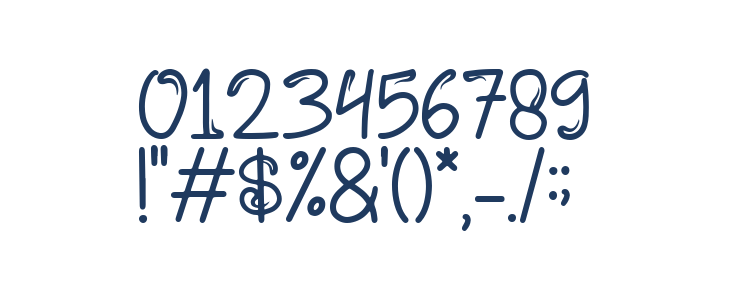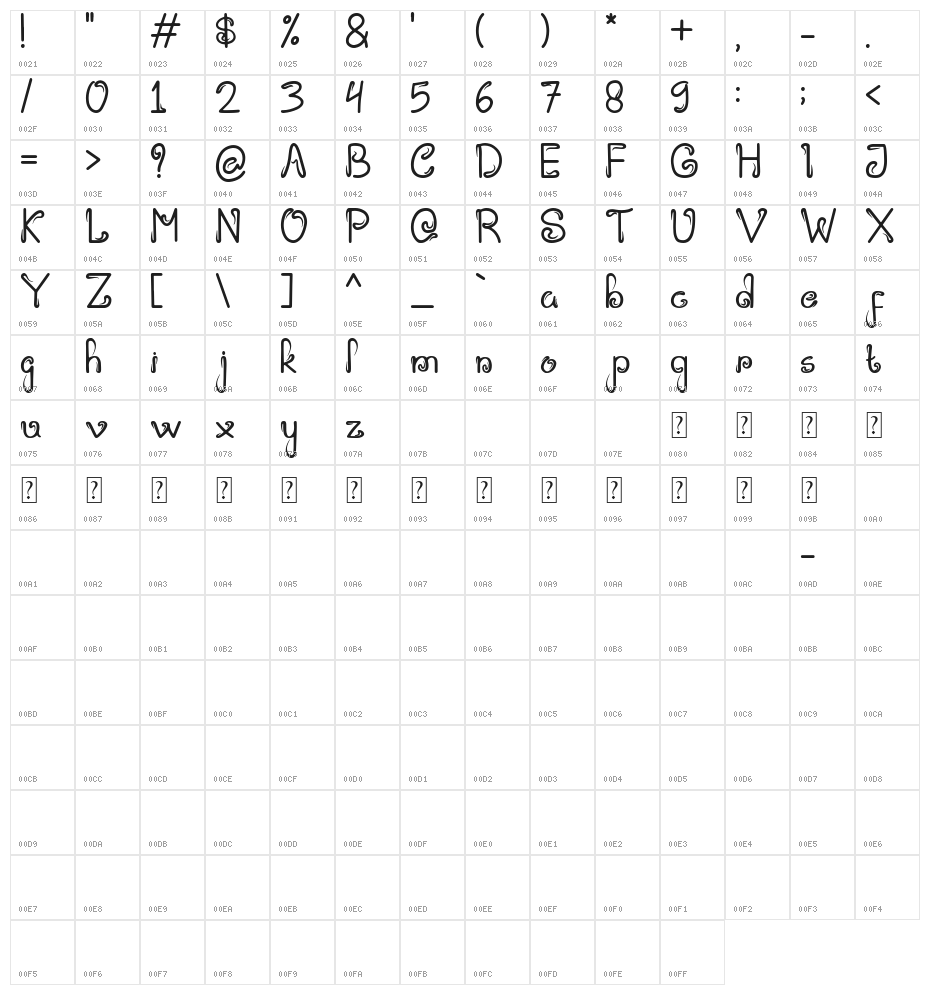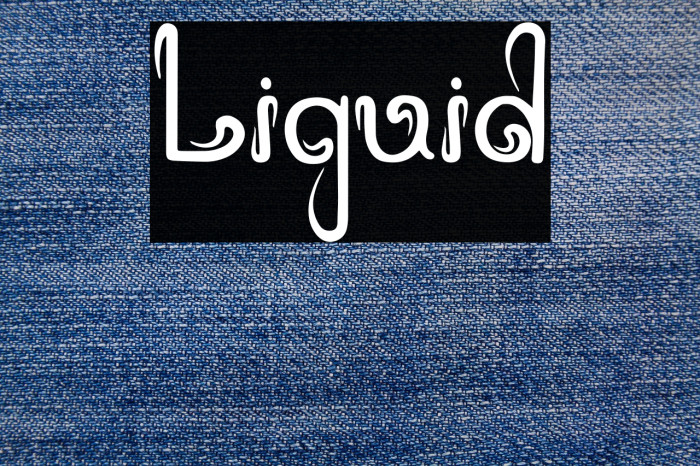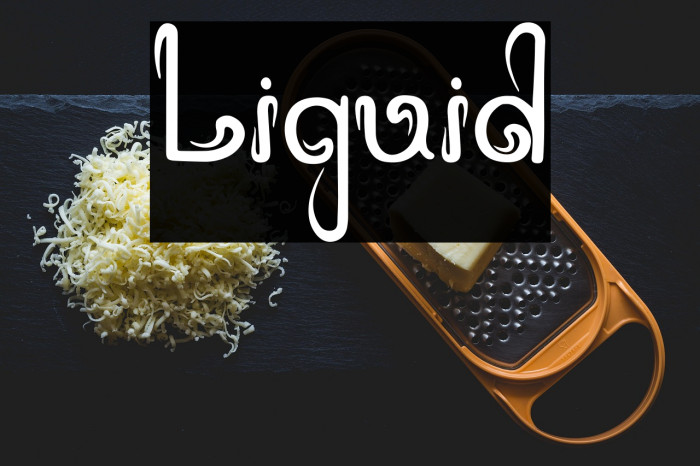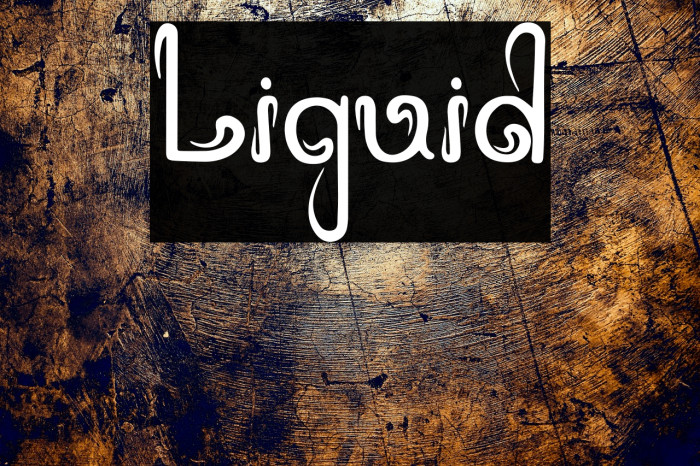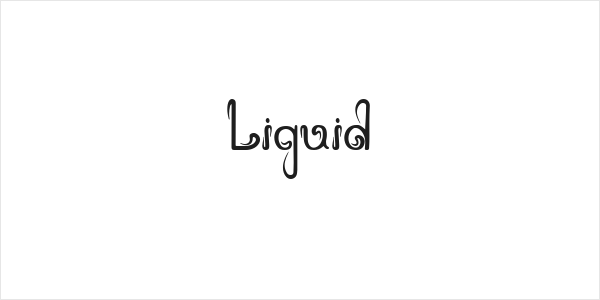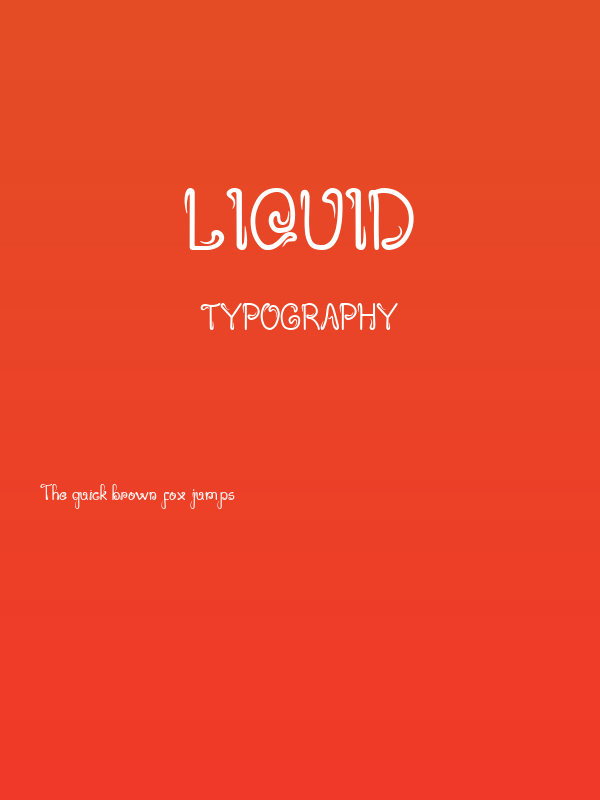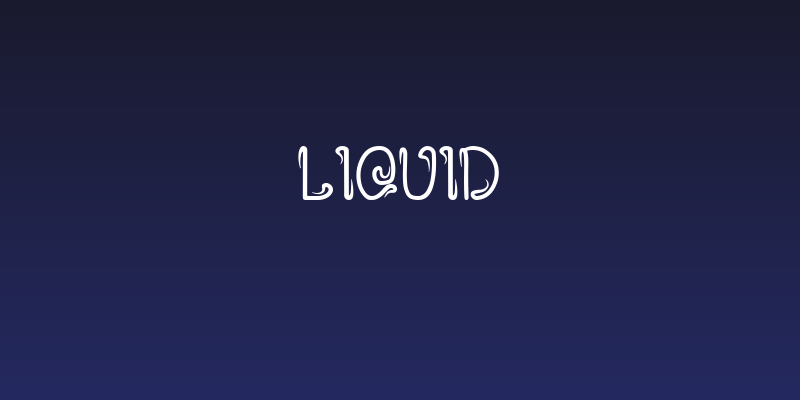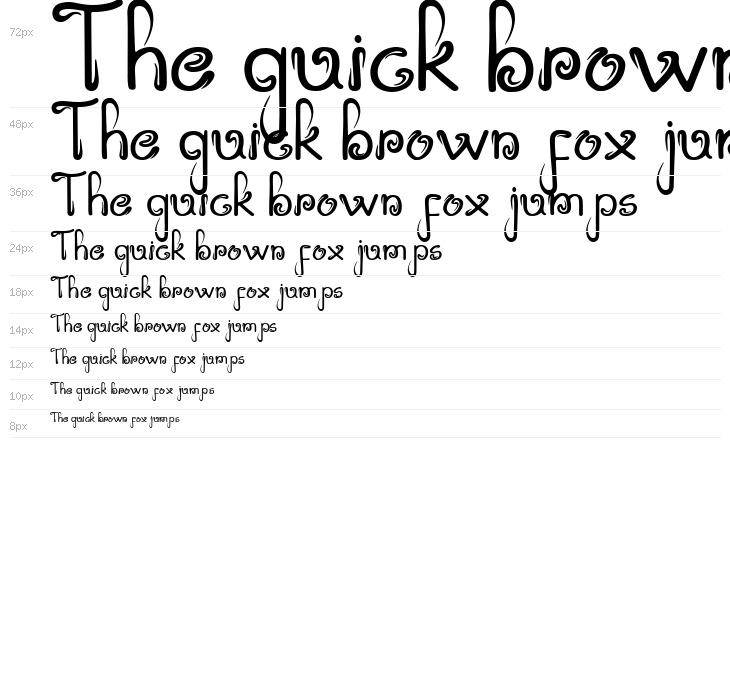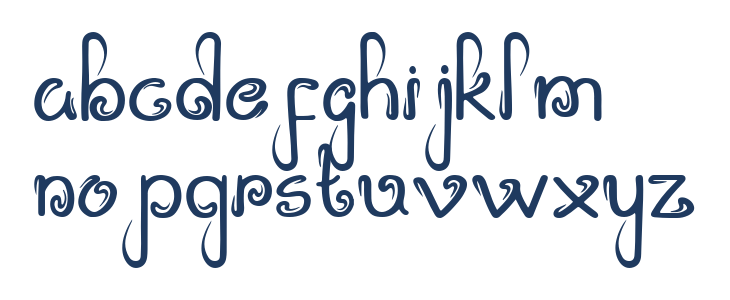
Liquid Font
Liquid Description
This playful and whimsical font features a fluid, liquid-like design with a unique blend of curves and loops. The characters are bold and rounded, with a distinctive flow that mimics the movement of liquid. The uppercase letters are particularly eye-catching, with their exaggerated curves and playful swirls. The lowercase letters maintain this fluidity, creating a cohesive and harmonious look. Numbers and special characters are equally dynamic, adding to the overall playful aesthetic. This font is perfect for projects that require a fun and engaging visual element.
| Use Case | Logos, Posters, Creative Branding |
| Proposed Projects | Ideal for children's book covers, playful branding, creative posters, and any project needing a fun, dynamic touch. |